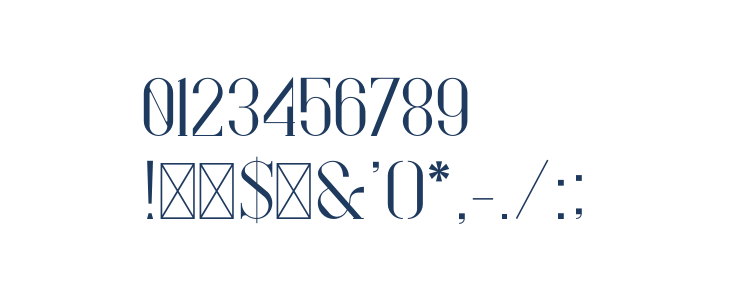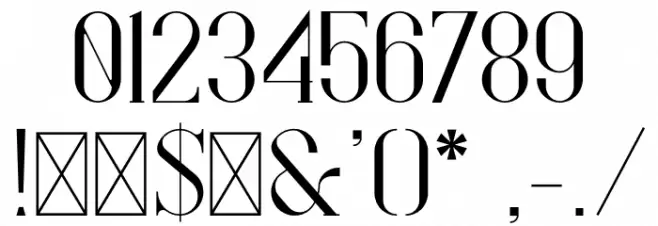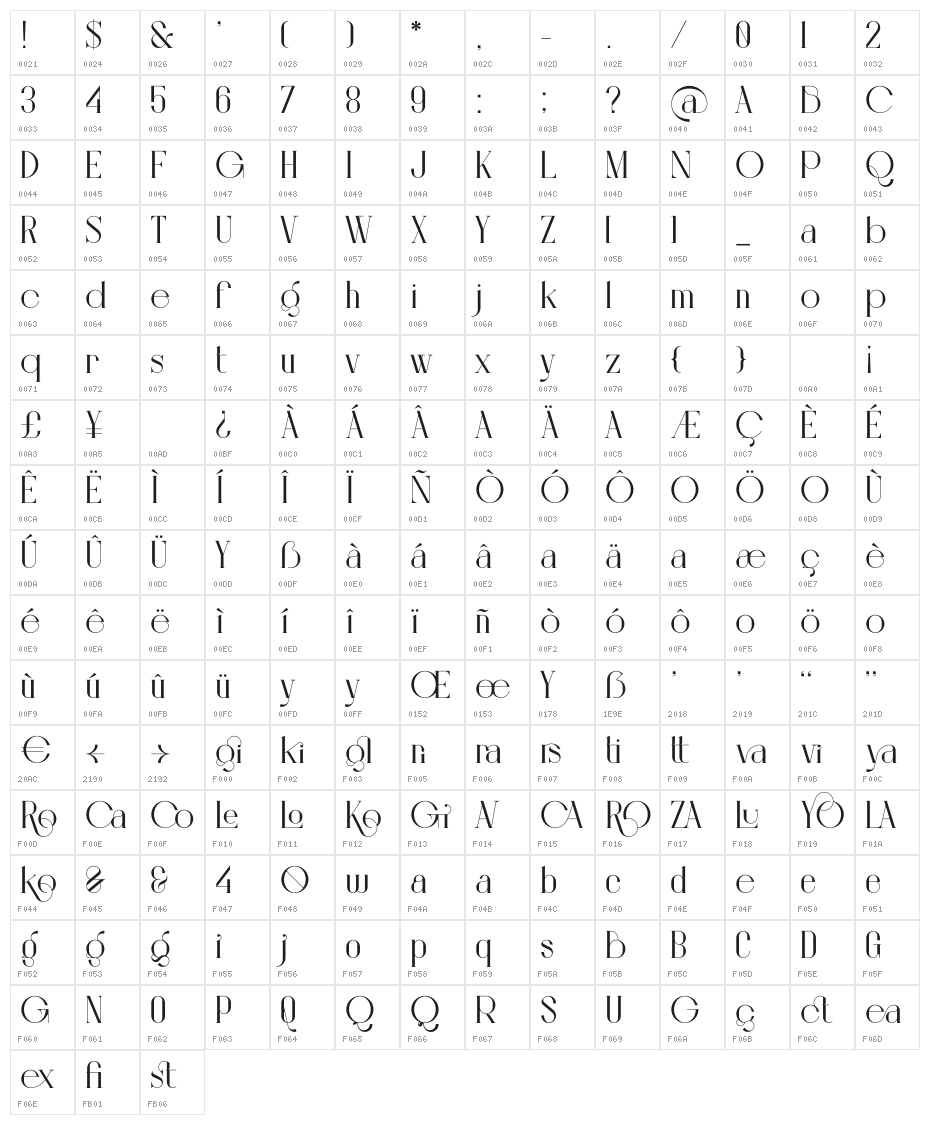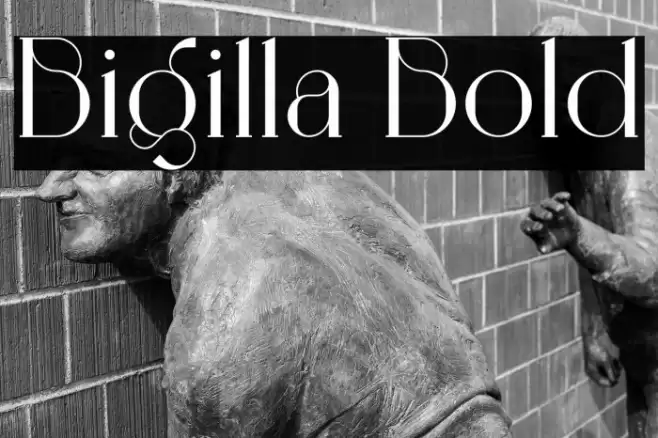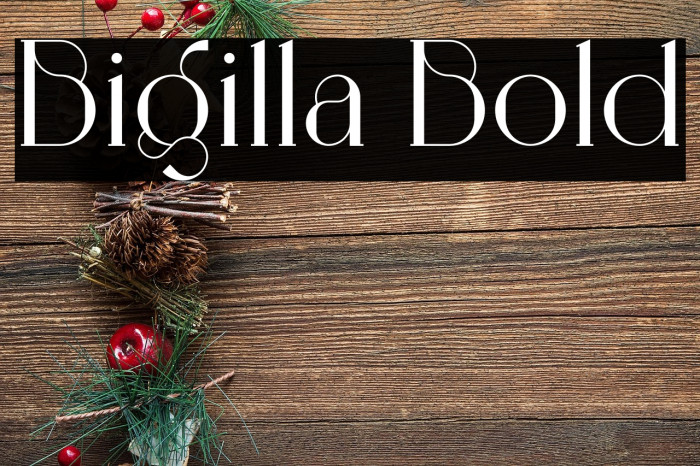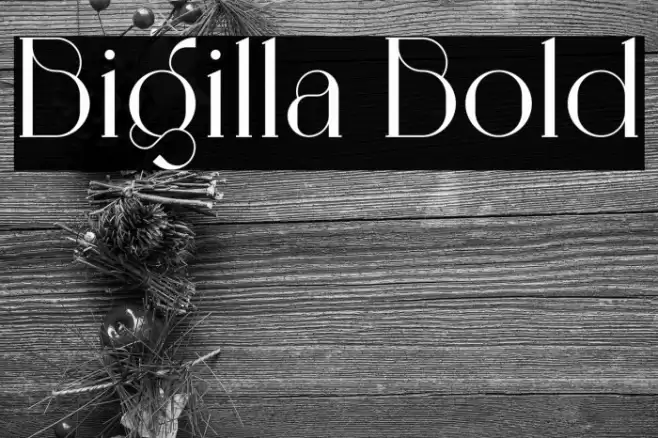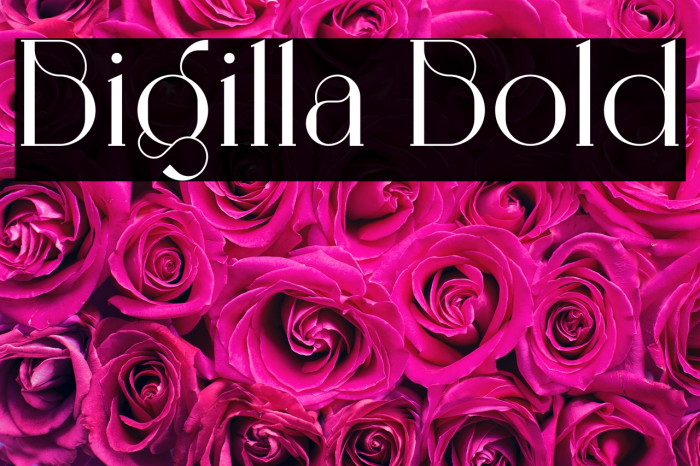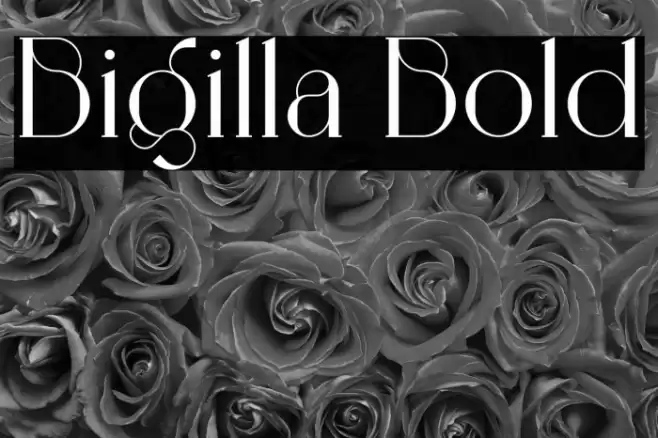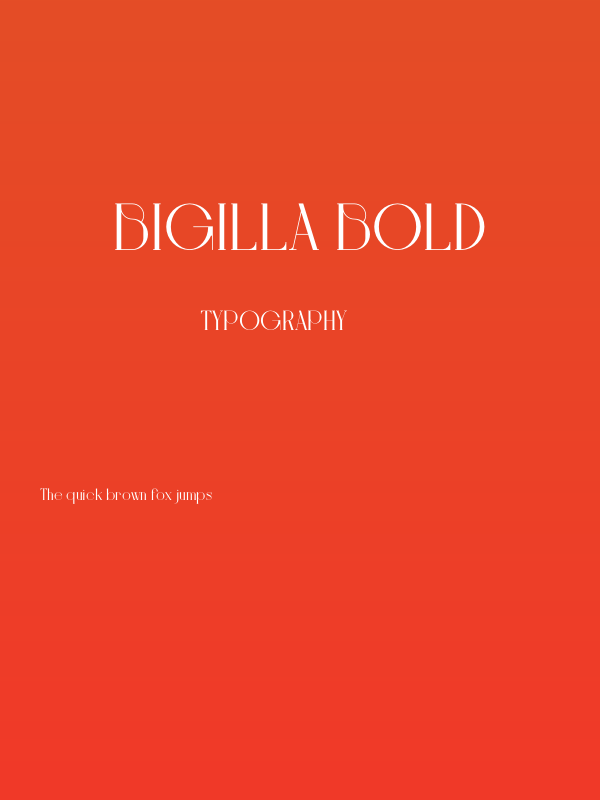
Bigilla Bold Font
Bigilla Bold Description
This font exhibits a striking and elegant design characterized by its high contrast between thick and thin strokes, giving it a sophisticated and modern appearance. The uppercase letters are tall and slender, with unique curves and angles that add a touch of flair. The lowercase letters maintain a consistent style, complementing the uppercase with their own distinctive loops and tails. Numbers are designed with the same high contrast, ensuring readability while maintaining the font's overall aesthetic. Special characters are crafted with attention to detail, enhancing the font's versatility for various uses.
| Overall Style | Elegant and sophisticated |
| Proposed Projects | Ideal for luxury branding, editorial design, fashion magazines, and high-end product packaging. |